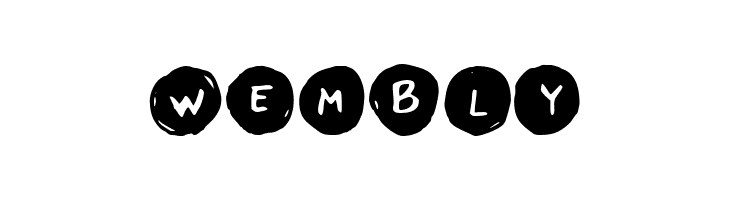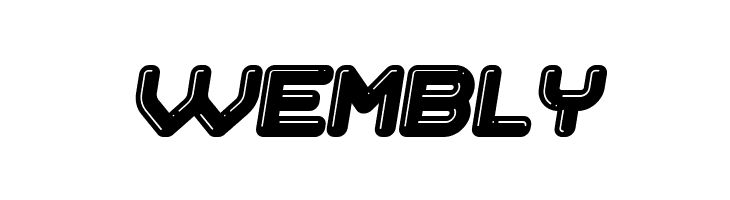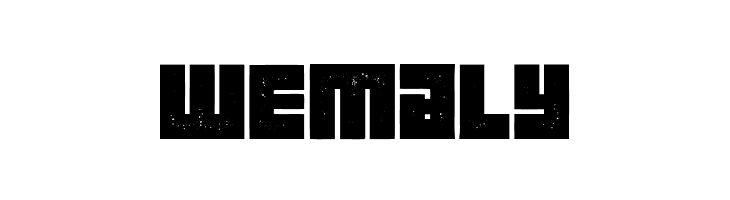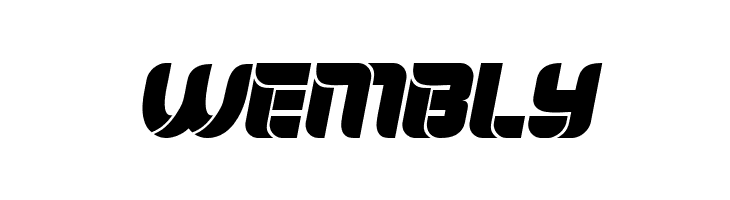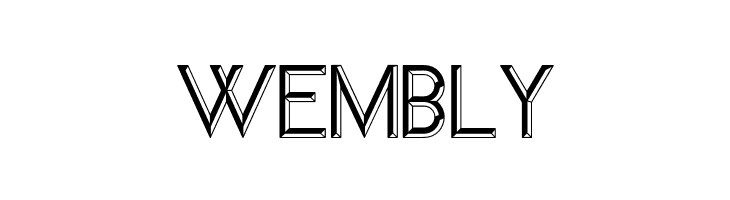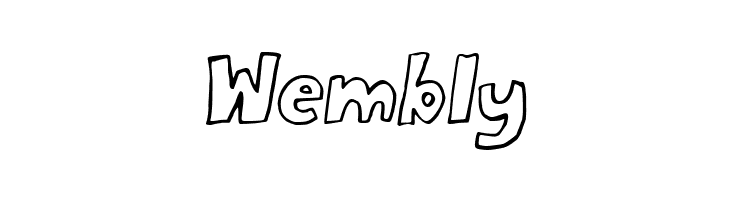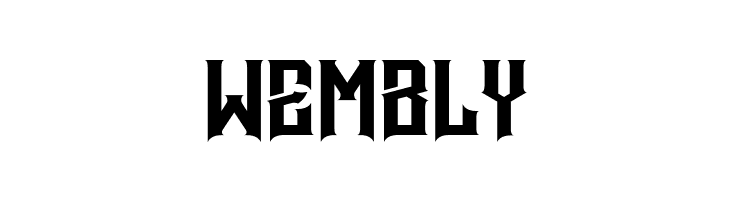
A playful, hand-drawn font with letters in imperfect circles, perfect for creative projects.
A decorative, geometric font with a futuristic, technological design.
A bold, italic font with a liquid-like, outlined style.
A bold, modern font with rounded edges and a three-dimensional outline.
A modern, geometric font with a double-line structure and rounded edges.
A modern, outlined italic font with a sleek, futuristic design.
A highly decorative font with intricate, tribal-like designs.
Bold, italicized font with a grungy, distressed texture and angular design.
A bold, geometric outline font with a modern, futuristic style.
A bold, grunge-textured font with a rugged, geometric style.
A bold, italicized, geometric font with a futuristic style.
A bold, geometric font with a retro, arcade-inspired style.
A bold, geometric outline font with an italicized, modern design.
A bold, geometric font with a modern, industrial aesthetic.
A bold, italicized font with a modern, geometric style.
A bold decorative font using illustrated faces as characters.
A modern, geometric font with a double-line style for a dimensional look.
A hand-drawn, mesh-patterned font with artistic flair.
Bold, italicized font with a 3D shadow effect for a dynamic look.
Hand-drawn, monster-themed decorative font with unique illustrations for each character.
A bold, decorative font with intricate patterns, inspired by traditional Mexican design.
A bold, decorative font with a Mexican-inspired, playful style and italicized slant.
A bold, italic, and decorative font with intricate patterns and a dynamic style.
A bold, playful font with a hand-drawn, rounded style.
A playful, hand-drawn font with bold, uneven strokes and a cartoonish style.
A playful, hand-drawn outlined font with a cartoonish style.
( Vladimir Nikolic - www.coroflot.com/vladimirnikolic )
A bold, playful, and slightly italicized font with rounded edges.
( Vladimir Nikolic - www.coroflot.com/vladimirnikolic )
A bold, angular font with a gothic influence and high contrast.
( Vladimir Nikolic - www.coroflot.com/vladimirnikolic )
A bold, 3D font with a vintage, embossed style.
( Vladimir Nikolic - www.coroflot.com/vladimirnikolic )
Bold, geometric icon set for mobile and communication interfaces.
( Vladimir Nikolic - www.coroflot.com/vladimirnikolic )
A bold, modern decorative font with outlined, filled characters.
A bold, decorative font with a gradient and dotted pattern for a 3D effect.
A bold, three-dimensional font with a geometric, outlined style.
A decorative and intricate font with swirling, textured characters.